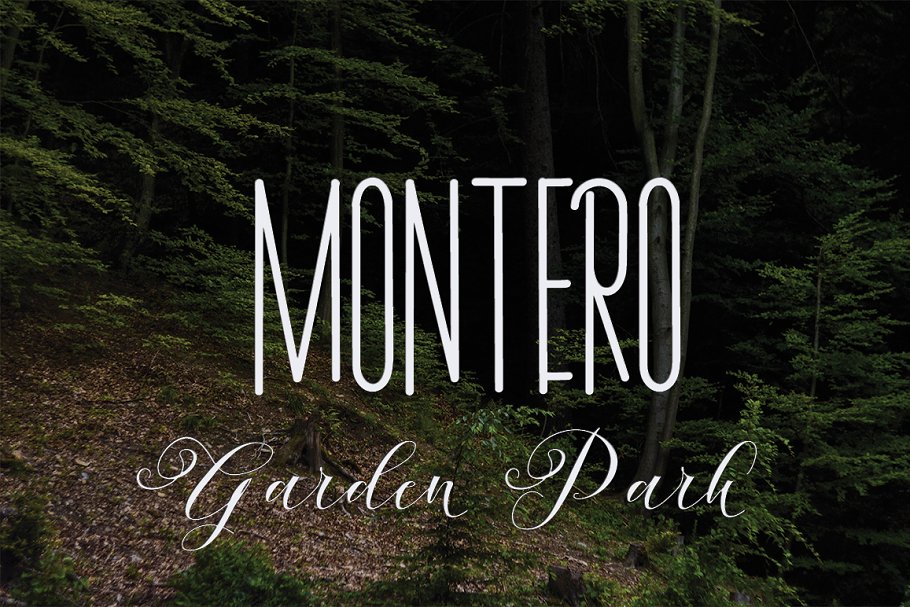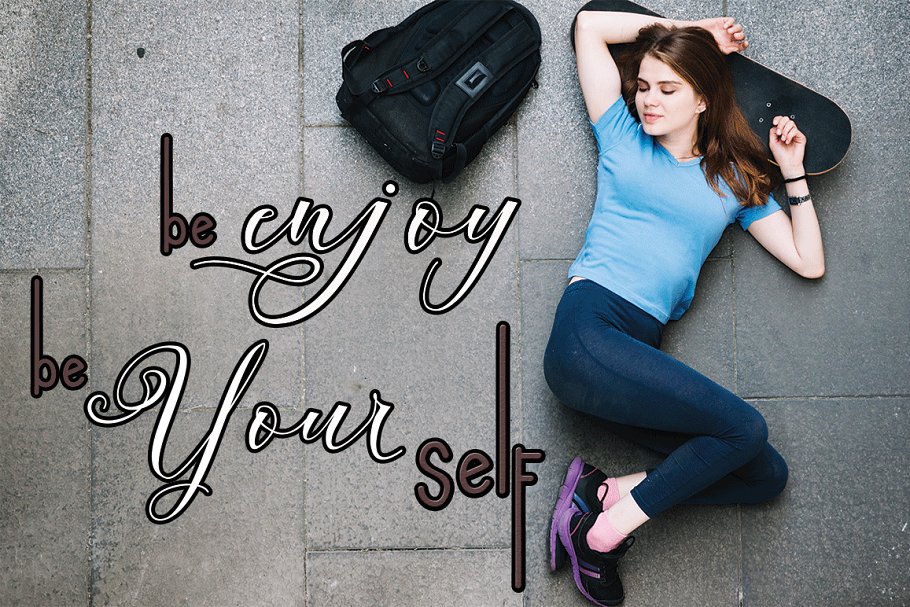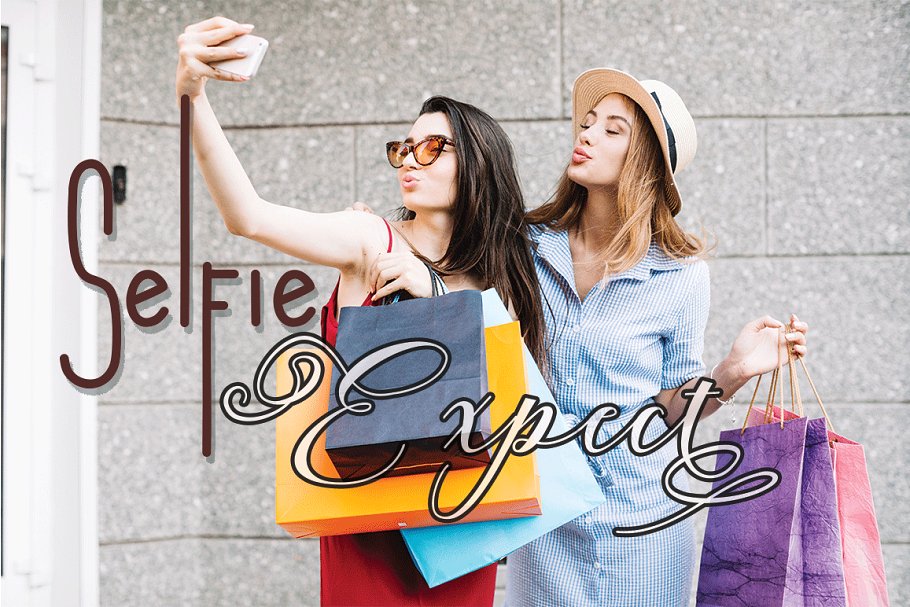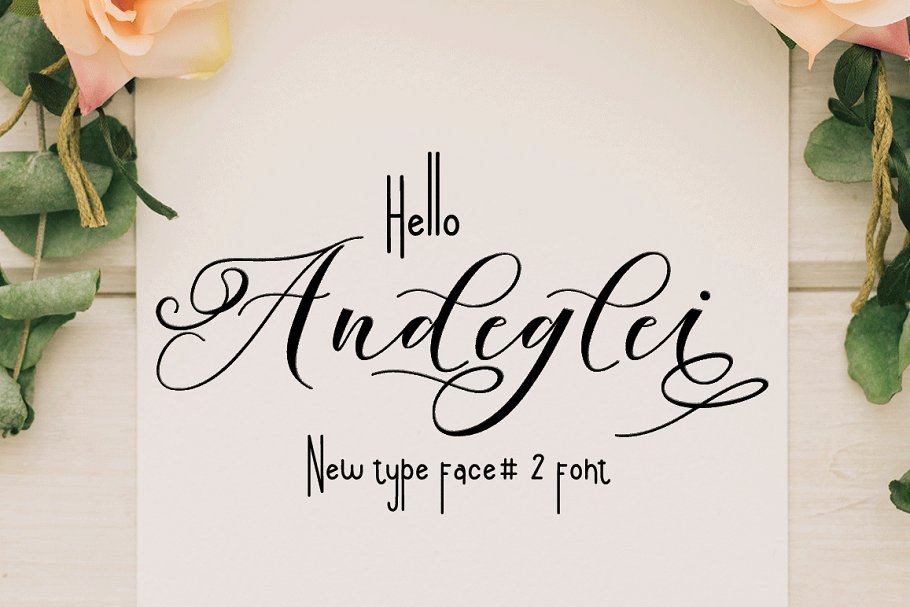
Andeglei Font Duo
This is a luxury sans serif with monoline script. This font has a strong strokes, dynamic and perfect paired with monoline scripts. Introducing Andeglei Font. This Modern Calligraphy and sans typeface welcomes you to use it for various purposes such as logo, card, wedding invitation, headings, signatures, t-shirt, letterhead, cutting, hot stamping, signage, labels, posters and more.